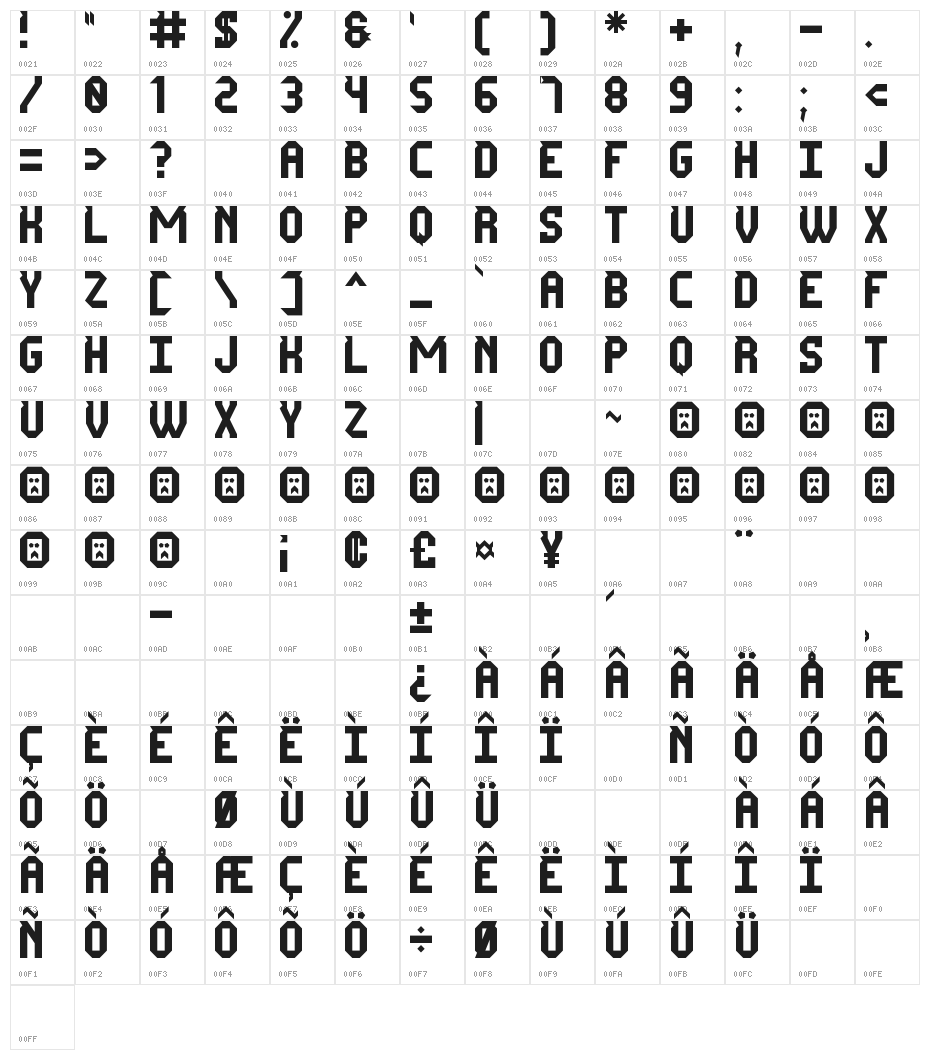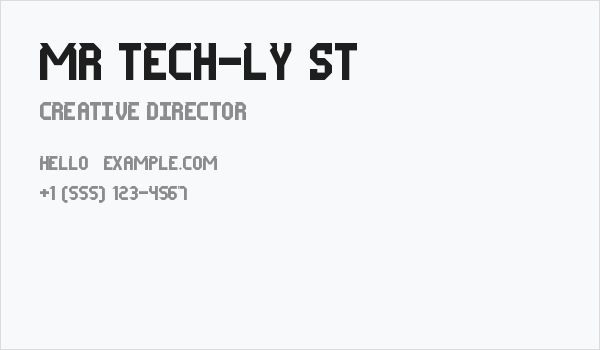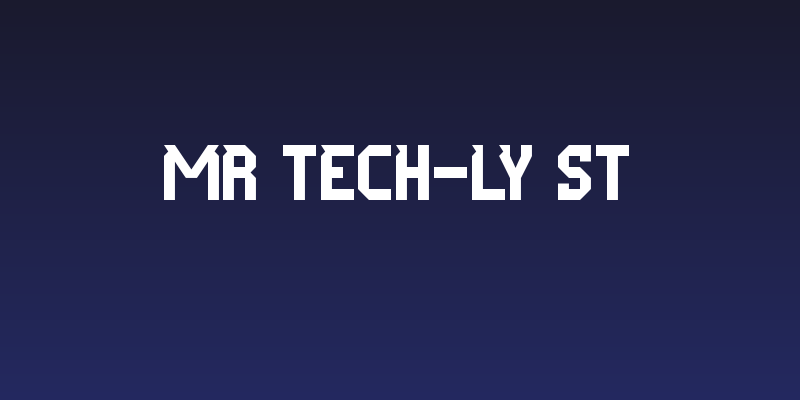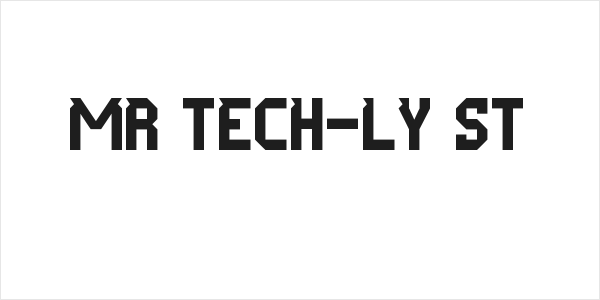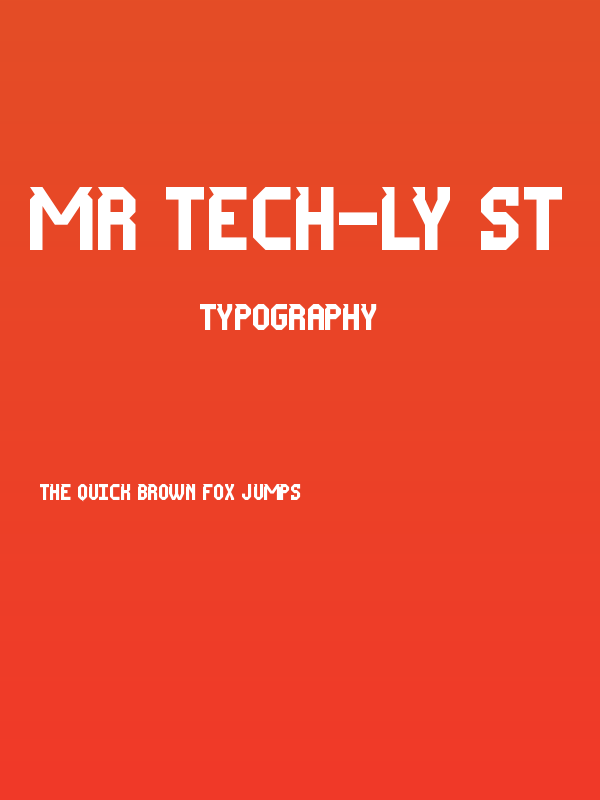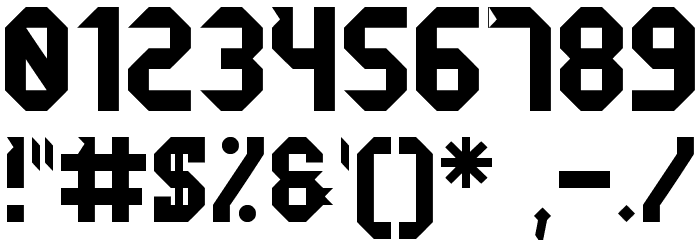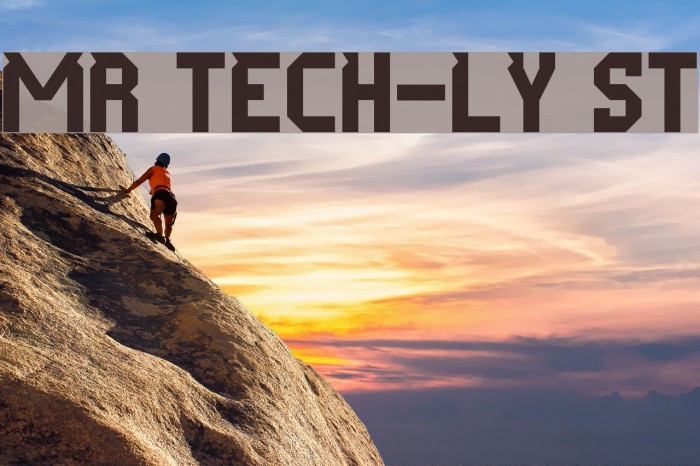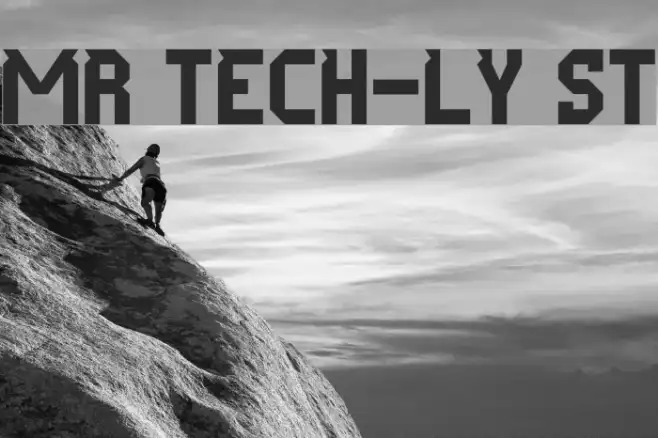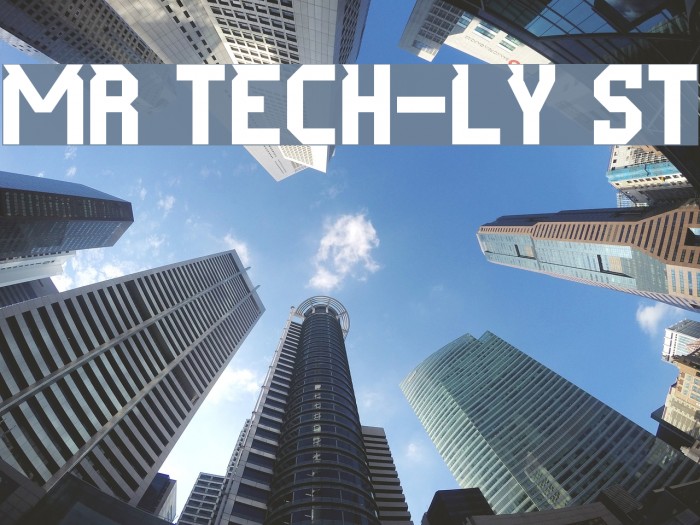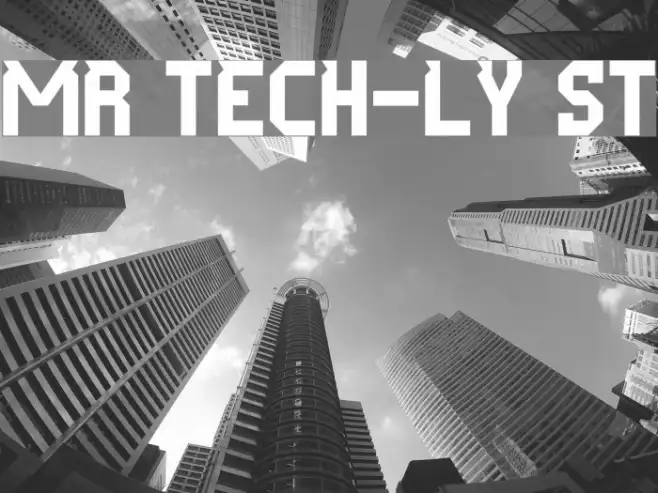
Mr Tech-Ly St Font
Mr Tech-Ly St Description
This font features a bold, geometric design with sharp angles and a futuristic aesthetic. Each character is constructed with straight lines and angular cuts, giving it a mechanical and tech-inspired look. The uppercase and lowercase letters maintain a consistent style, with a strong emphasis on symmetry and uniformity. The numerals and special characters follow the same design principles, ensuring a cohesive appearance across all glyphs. This font is ideal for projects that require a modern and edgy feel, such as technology branding, video game titles, or sci-fi themed designs.
| Proposed Projects | Ideal for technology branding, video game titles, sci-fi themed designs, and modern posters. |